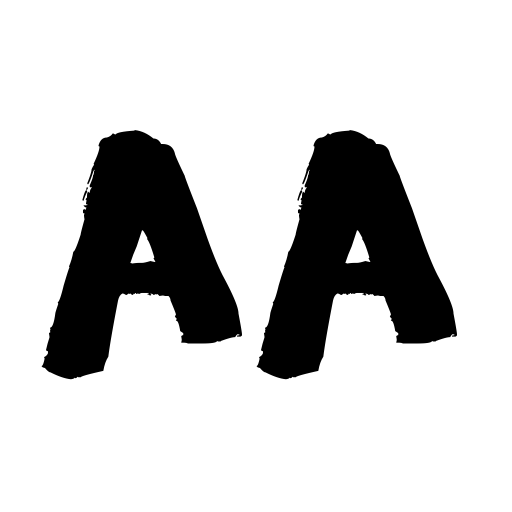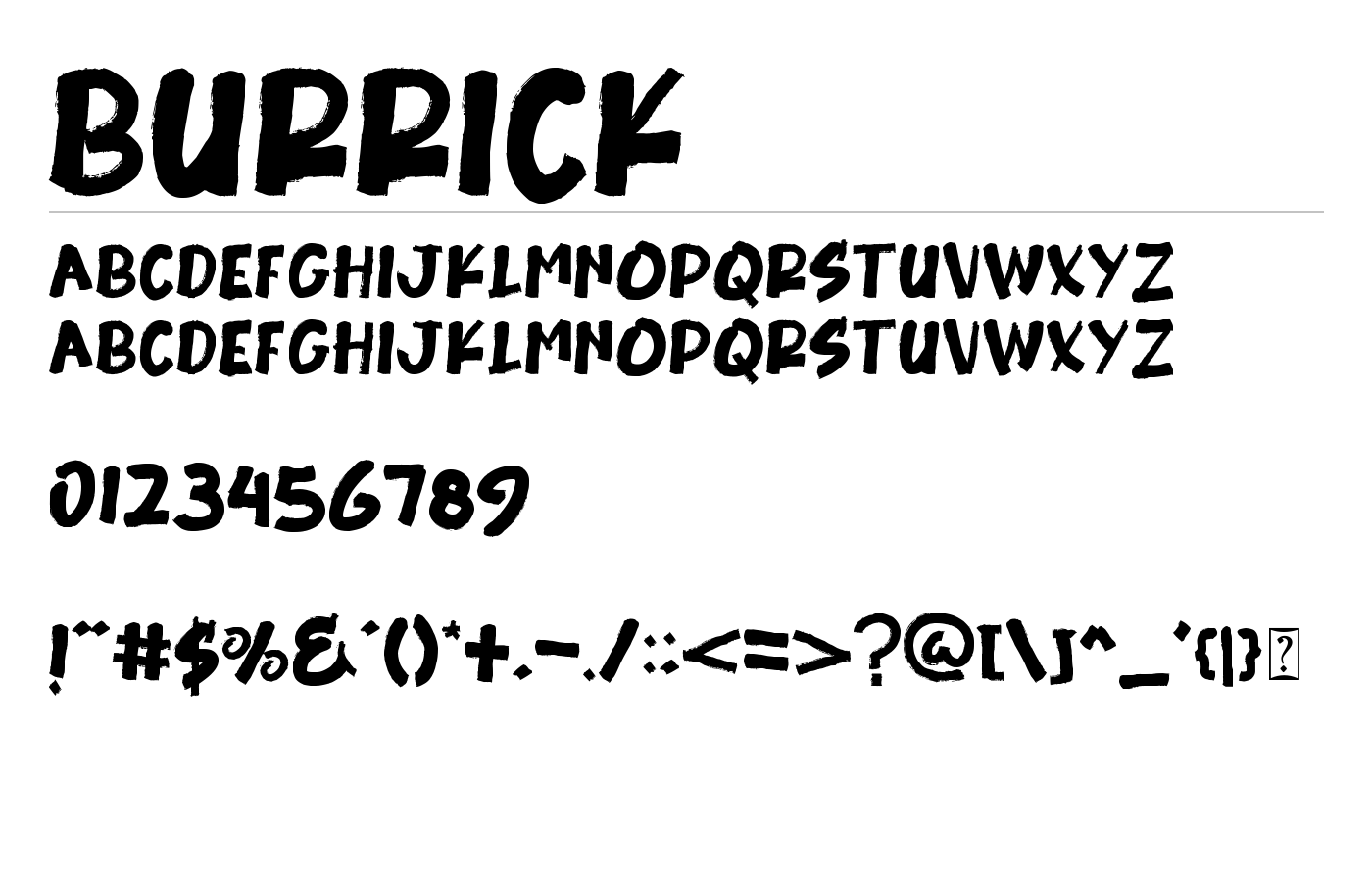
Burrick is a bold, hand-drawn sans serif font with a playful and energetic vibe, characterized by its rough, textured strokes and irregular shapes. Its wide, chunky letterforms and expressive, casual style make it ideal for creative projects, casual branding, posters, and headlines that want to convey a fun and approachable personality. This font stands out with its distinct handcrafted feel, perfect for designs seeking a lively and informal touch.
Burrick Font
| Designer | JujunGag 2020 |